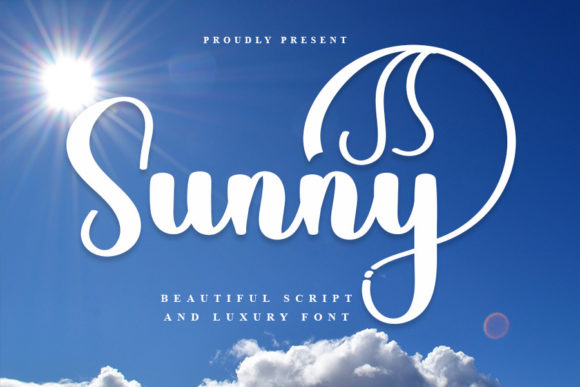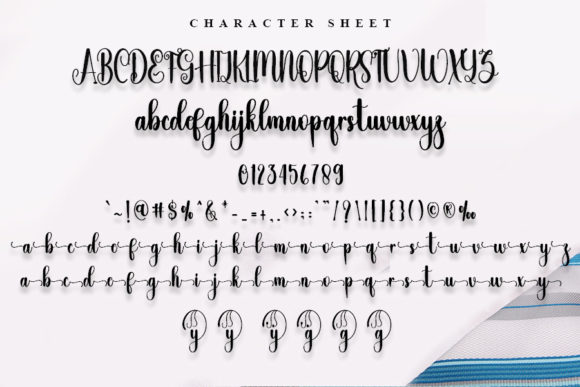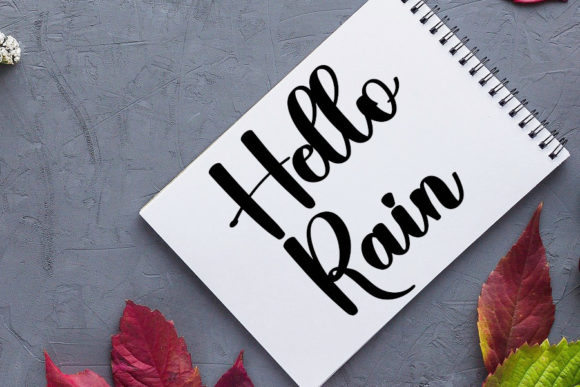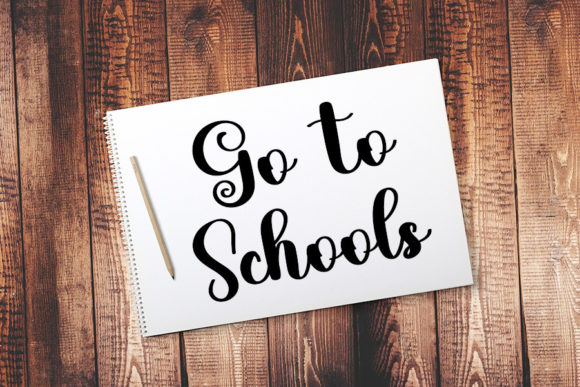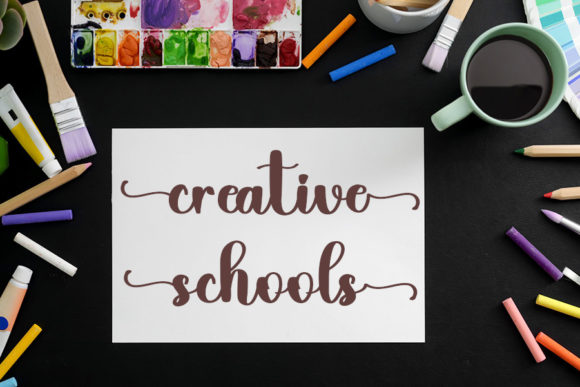
About Sunny Font
Sunny is a stylish handwritten font with a contemporary atmosphere and impeccable form, inspired by a timeless classic calligraphy. Balanced and varied, this font was designed to enhance the beauty of your projects.